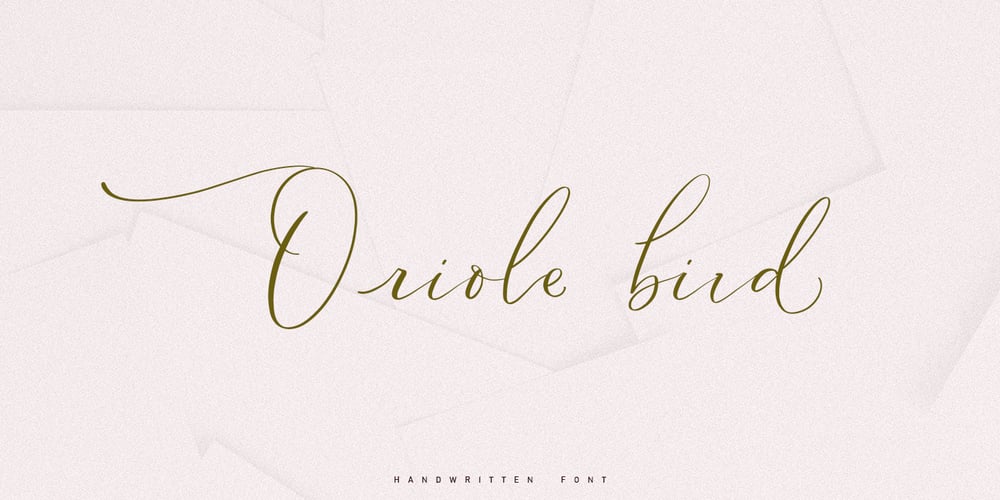
Oriole Bird Font Family was designed by Tanya Amos and published by Tanincreate. Oriole Bird contains 1 styles and family package options. Oriole Bird is a modern calligraphy script to bring an elegance to your designs – branding projects, social media, wedding invitation, greeting cards, packaging, logo design, news, titling, headlines, posters, signboards and more. It features multi language support (for most of Western Europe), contains glyphs with some OpenType features – standard ligatures, alternates for uppercase (beginning swashes) and lowercase letters (beginning and ending swashes).